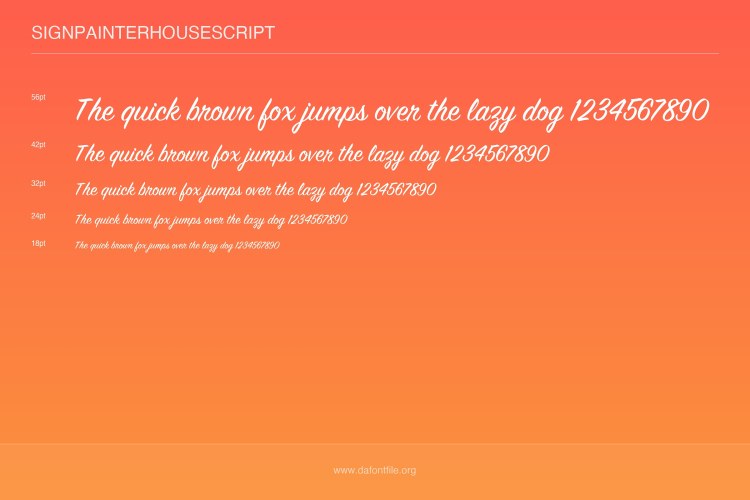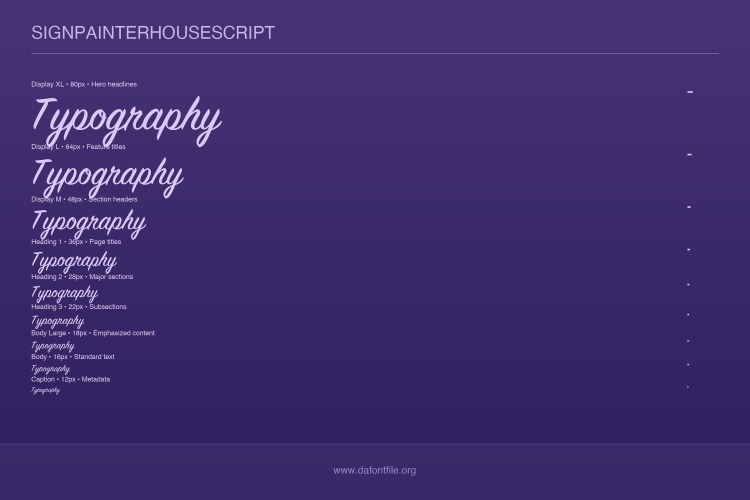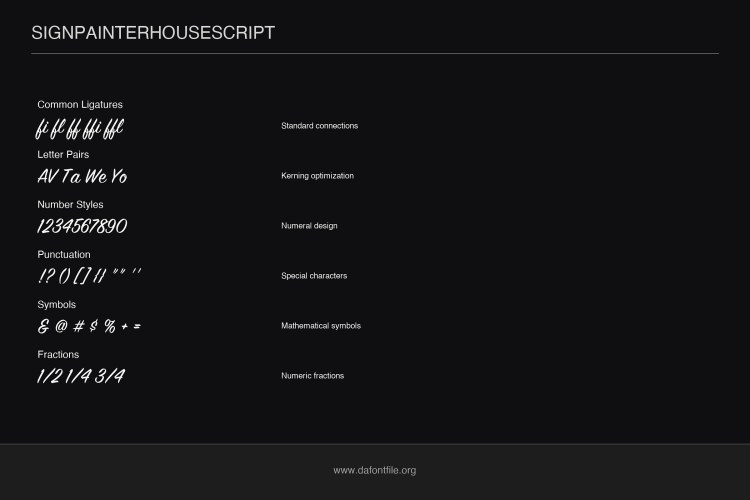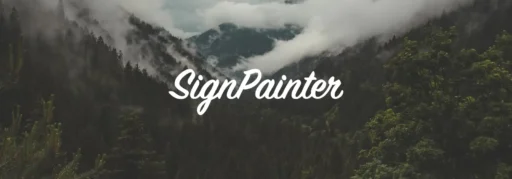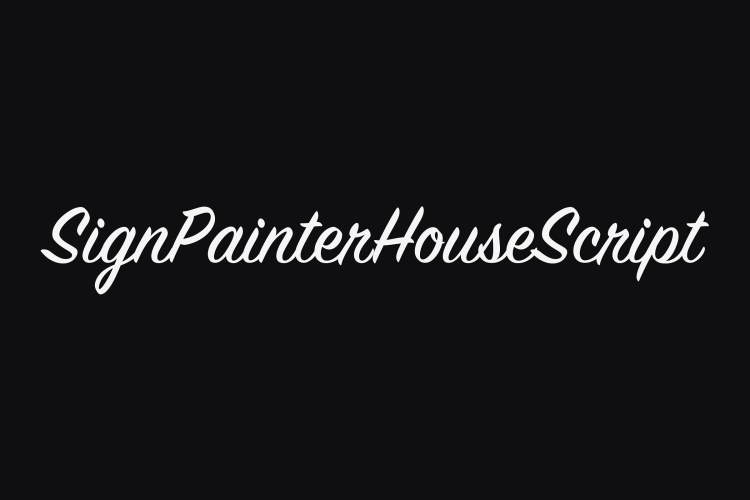
SignPainter Font
SignPainter is a classic brush script typeface inspired by traditional hand-painted signage. With its smooth strokes and natural rhythm, it brings a personal, handcrafted touch to logos, posters, packaging, and branding projects. The font captures the charm of vintage sign painting while staying versatile for modern design.
Where SignPainter Font works best
Personal branding & signatures
SignPainter Font adds an authentic, human signature to portfolios, coaching brands and creator logos.
Cards, journals & planners
Ideal for greeting cards, printable planners and scrapbook layouts.
Food & café menus
Handwritten styles like SignPainter Font make menus and chalkboard-style signage feel friendly.
What is SignPainter Font good for?
SignPainter Font is a Handwriting Fonts typeface tagged Branding, Brush, Classic, Handwriting Fonts. It works well for headlines, logos, posters, social media graphics and branding projects that need a distinctive handwriting fonts look.